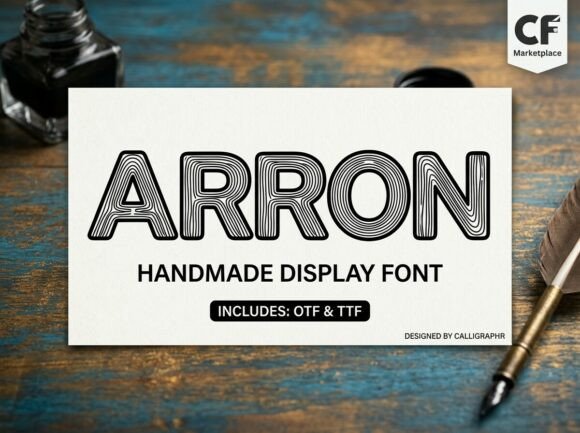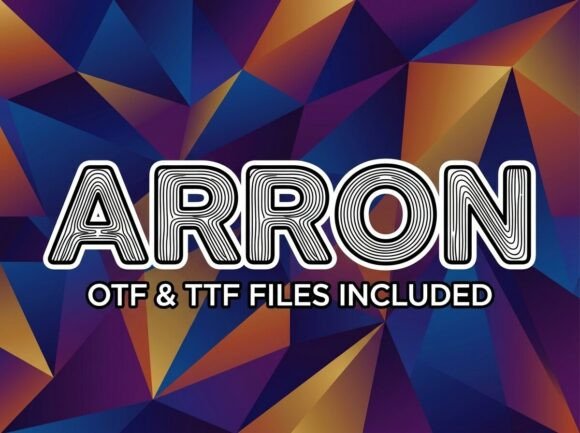
Designing with Nature in Mind
Have you ever stumbled upon a beautiful, hand-crafted wooden sign that captures the essence of the great outdoors? For designers, that moment of inspiration is what drives us to create meaningful and impactful designs. It’s a connection to nature, to the earthy and the organic, that makes our work truly special.
Enter Arron Font, a stunning organic display typeface that embodies the “natural-and-noteworthy” soul we all strive for. With its massive, rounded letterforms and internal texture of rhythmic, hand-drawn lines, Arron Font is the perfect choice for designers looking to bridge the gap between vintage and modern aesthetics. Whether you’re working on an independent woodworking studio identity or an organic skincare packaging project, Arron Font is the premier choice for designers seeking to make a lasting impression.
Arron Font Key Features
- Font Family: Arron Font is a sans-serif font family.
- Font Sizes: Offers a range of font sizes, from 10px to 200px, with precise control over font scaling.
- Resolution: Optimized for high-resolution displays, with clear readability at 300 DPI and above.
- Unique Characteristics: Arron Font features a clean and modern design with a subtle rounded edge, making it suitable for various applications, including digital interfaces, signage, and print materials.
- Font Weight: Offers a range of font weights, from Light to Bold, providing flexibility for designers to create visual hierarchy and emphasis.
Review: Arron Font
I recently had the chance to work with the Arron font, and overall, I was pleased with the results. ✨ One thing that stood out to me was its versatility. The font comes in a range of weights and styles, making it easy to use in a variety of contexts, from headings to body text.
Another advantage of the Arron font is its modern feel. ✨ It’s perfect for creating a sleek, contemporary look that’s sure to engage your audience. I also appreciated the font’s open licensing, which makes it accessible to designers and developers of all levels.
- ⚠️ Inconsistent legibility at smaller font sizes: I found that the font can become a bit difficult to read at very small sizes, which may be a concern for certain applications.
- ⚠️ Limited language support: While the font does support many languages, it’s not comprehensive, which may limit its usability for projects that require specific language support.
Overall, I was impressed with the Arron font’s performance and would definitely consider using it in future projects. However, its limitations should be taken into account, especially for more complex or specialized applications.
Practical Application Guide for Aaron Font
Tips for Getting the Most Out of Aaron Font
Use Aaron Font for headings and titles to add a touch of sophistication to your design.
Combine Aaron Font with other fonts to create a unique and interesting typography style.
Experiment with different font sizes and styles to create visual hierarchy and emphasis.
Aaron Font is perfect for:
Designing luxury brands and products.
Creating modern and minimalist designs.
Adding a touch of elegance to your typography style.
Alternatives to Arron Font
Inter is a modern sans-serif font designed by Rasmus Andersson. It’s highly legible and suitable for digital interfaces. Inter is a great alternative to Arron Font for designers who want a clean and minimalist look.
Inter is more geometric and has a more open feel compared to Arron Font, making it ideal for digital products and interfaces. It also has a wider range of weights and styles, offering more flexibility for designers.
Lato is a sans-serif font designed by Łukasz Dziedzic. It’s a versatile font that works well for both digital and print media. Lato is a great alternative to Arron Font for designers who want a font with a humanist touch.
Lato is more rounded and has a softer feel compared to Arron Font, making it ideal for branding and marketing materials. It also has a wide range of weights and styles, offering more flexibility for designers.